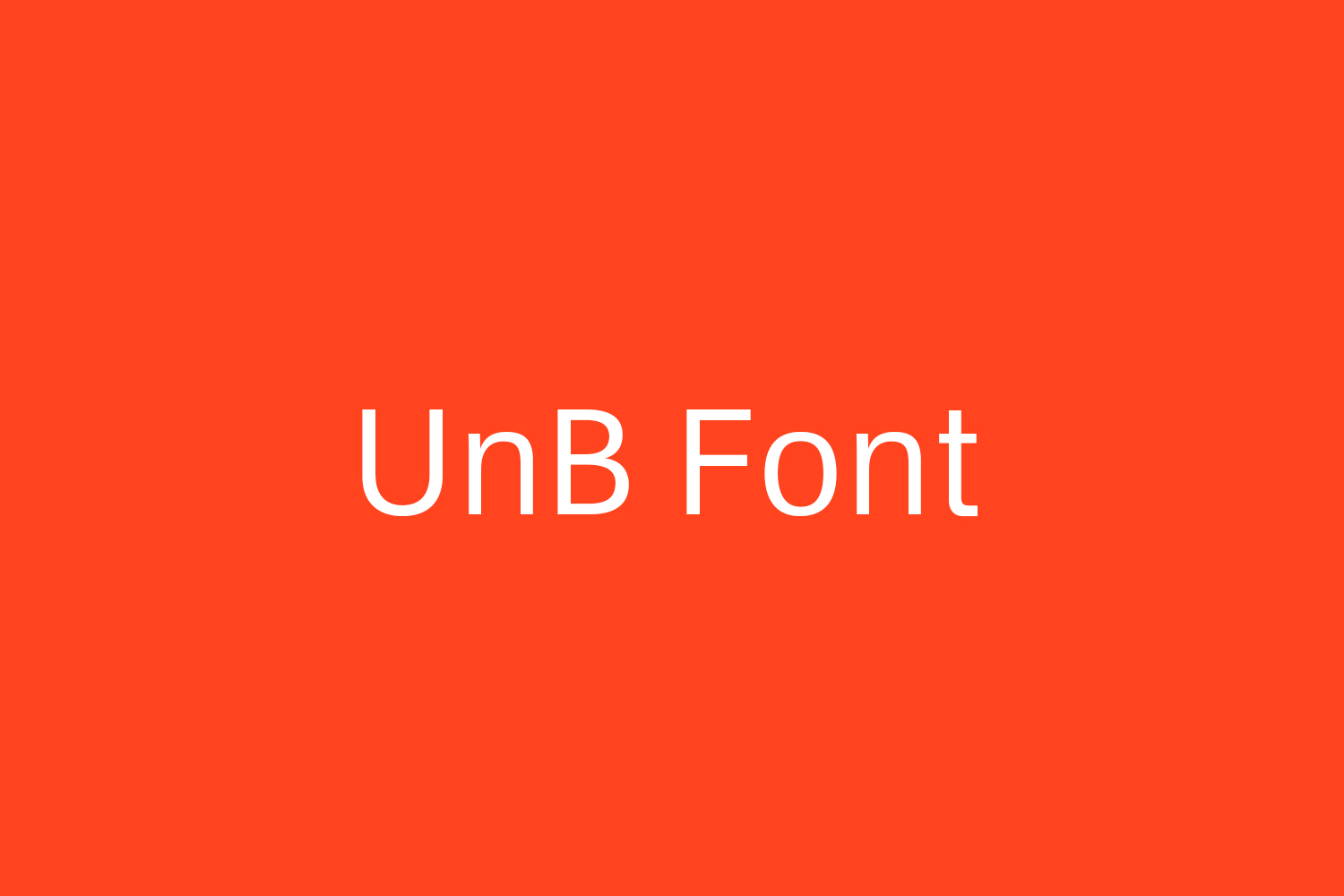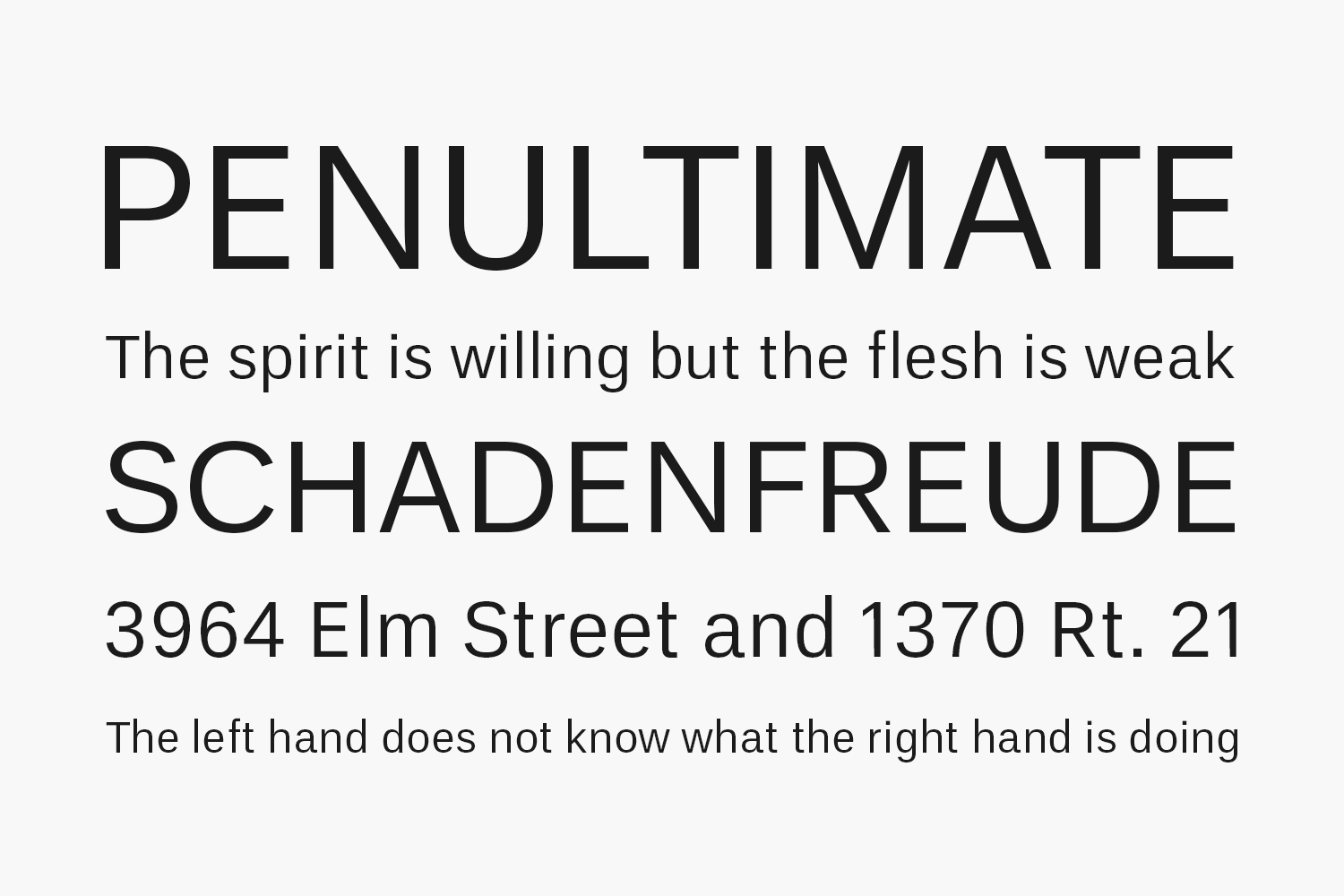
UnB Free Font Family were developed from the Liberation Sans type family, selected for its technical quality and its similarity to the typographic families previously used.
Designed by Universidade de Brasilia